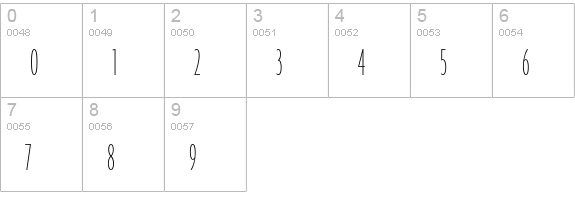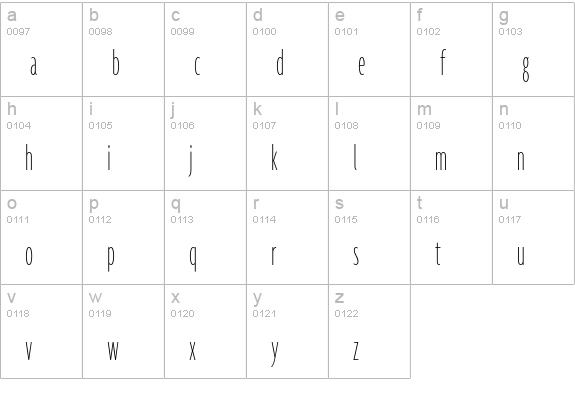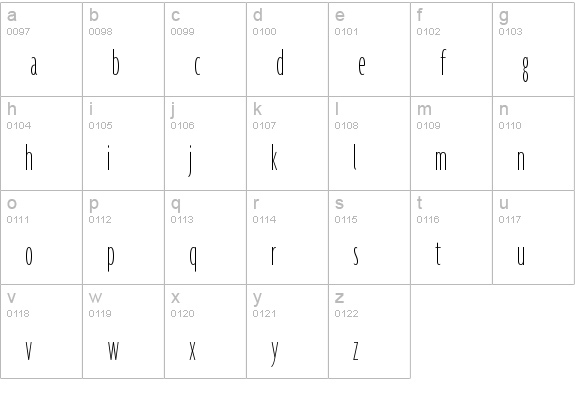
Agenda-ThinUltraCondensed Font Details
Introducing Agenda-ThinUltraCondensed font, a sleek and sophisticated typeface designed to make a bold statement in your projects. With its ultra-condensed design, this font exudes a modern and minimalistic aesthetic, perfect for creating a clean and professional look. Featuring thin and elongated letterforms, Agenda-ThinUltraCondensed font commands attention while maintaining a high level of readability. Whether you're designing a logo, poster, or branding materials, this font will add a touch of elegance and refinement to your work. Best of all, Agenda-ThinUltraCondensed font is available for free download at FontsMarket.com. Take advantage of this opportunity to enhance your design projects with a font that is both stylish and versatile. Don't miss out on this unique and striking typeface that will set your creations apart from the rest.